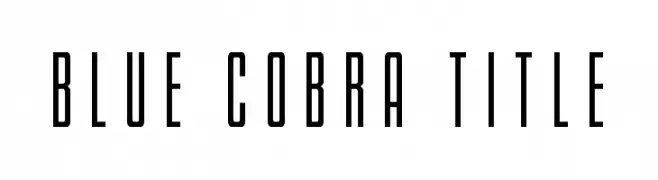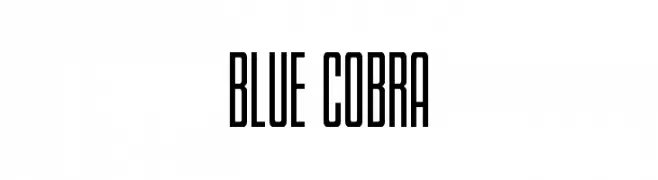
A modern, geometric font with tall, narrow characters and consistent stroke widths.
A modern, geometric font with tall, narrow characters and consistent stroke width.